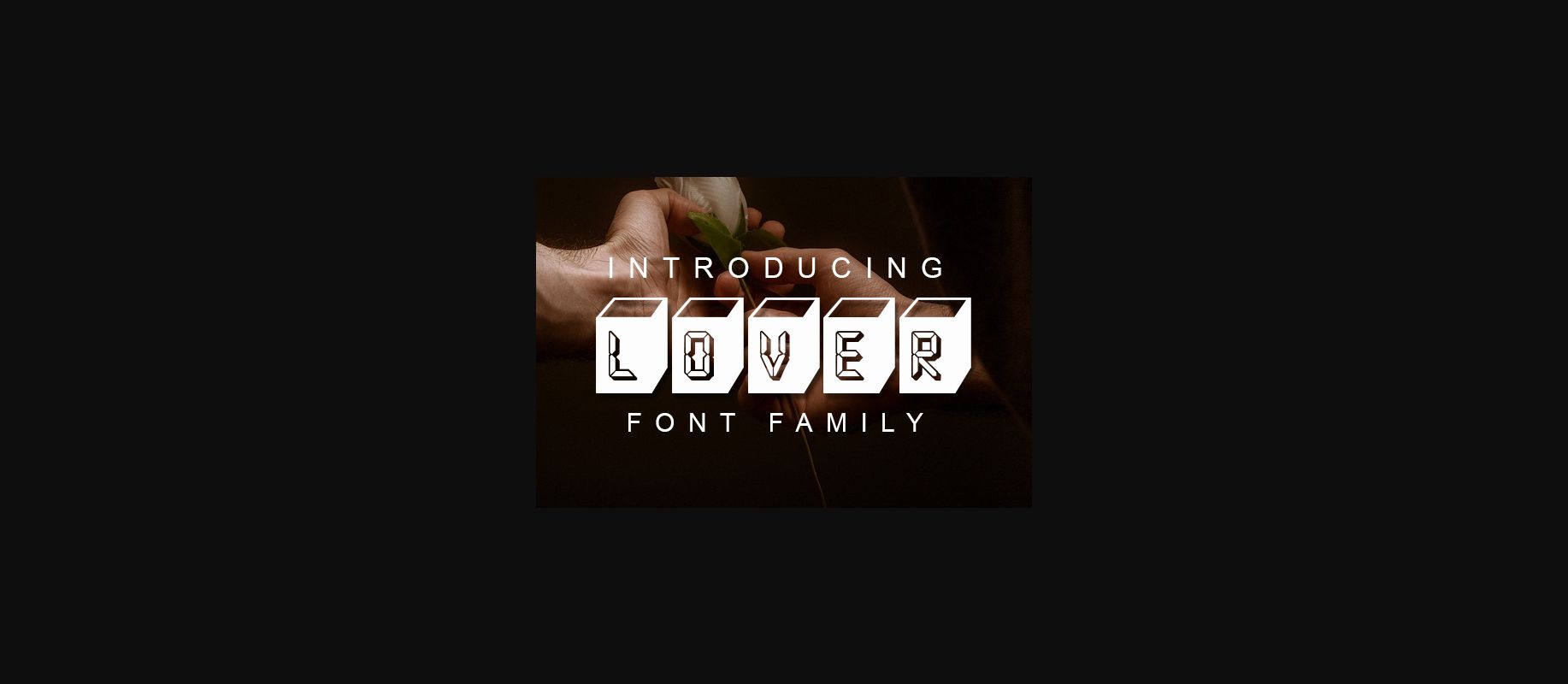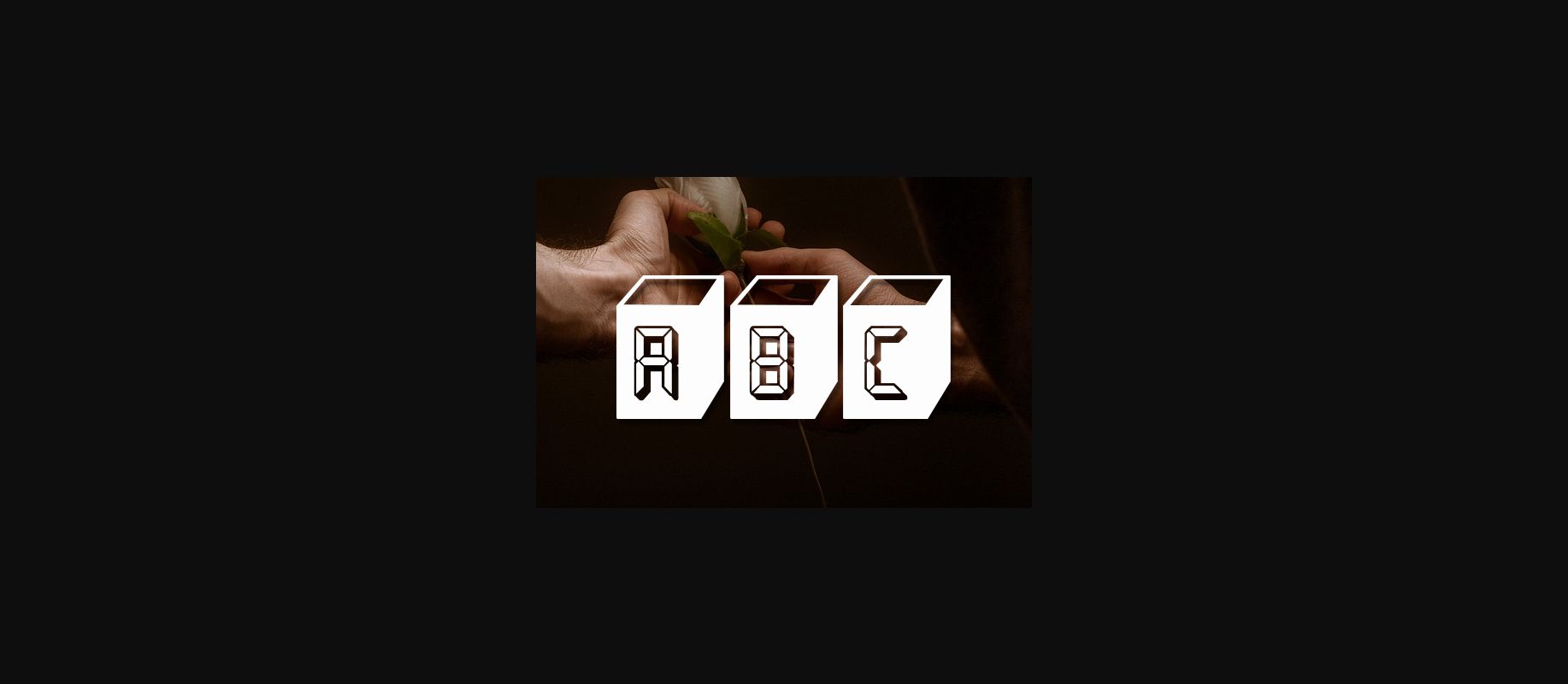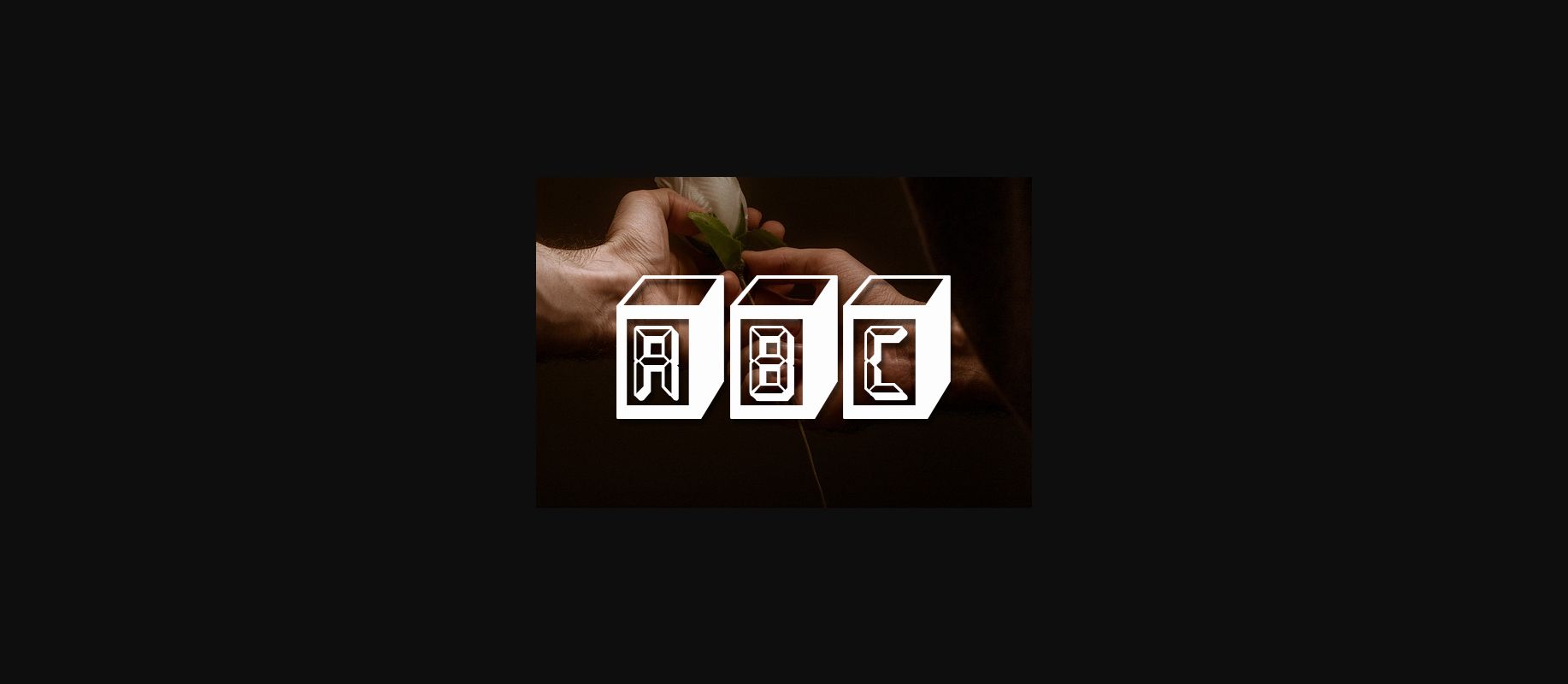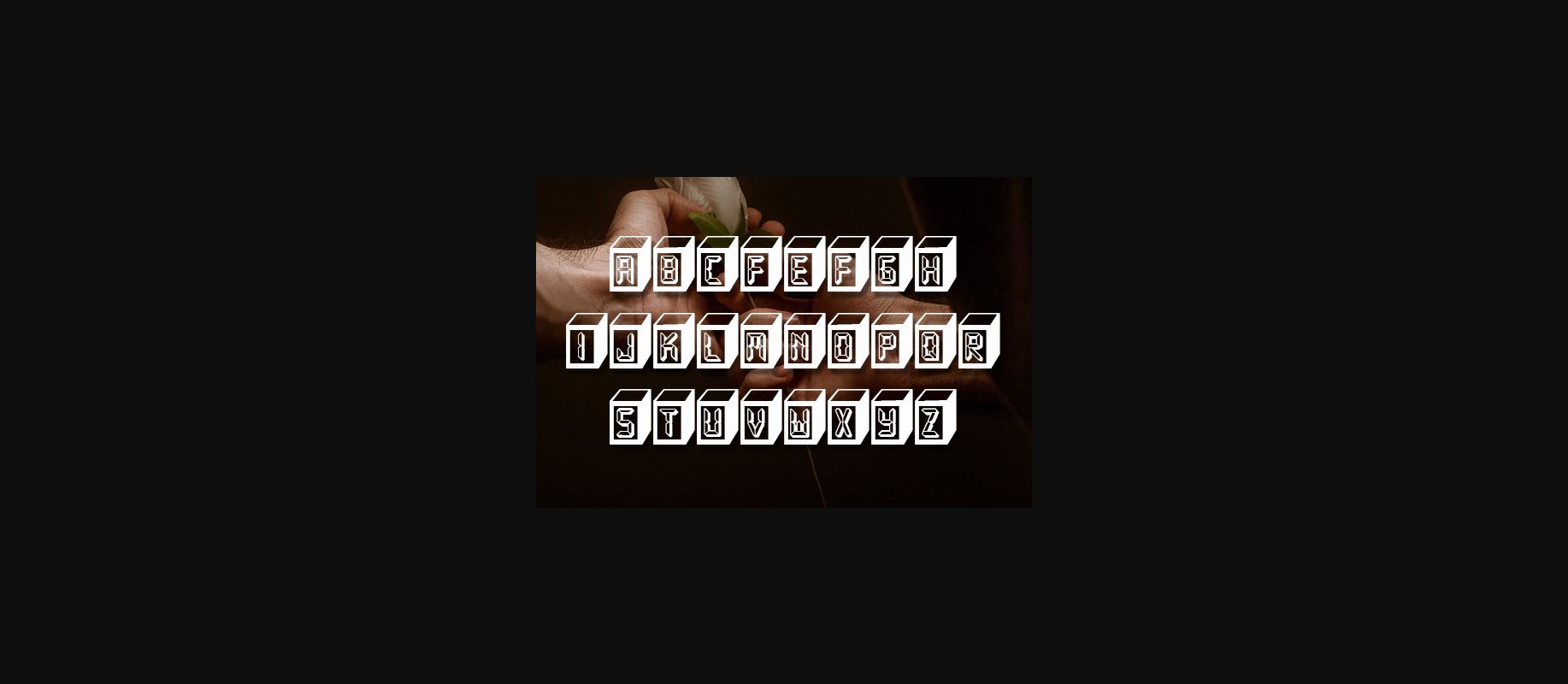
About Lover Font
Lover is a digital and futuristic decorative font. It will look stunning on any poster, flyer, or print. Use this font for your designs and explore its endless possibilities.